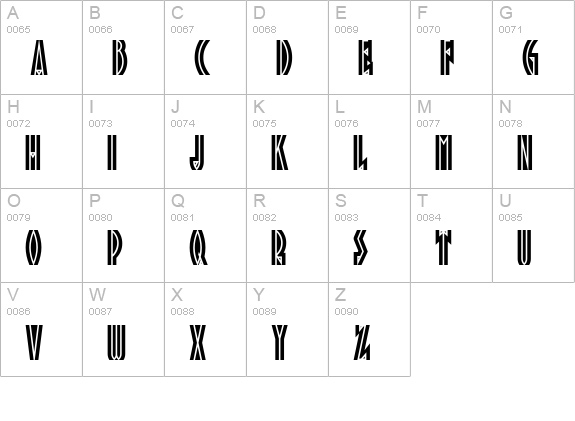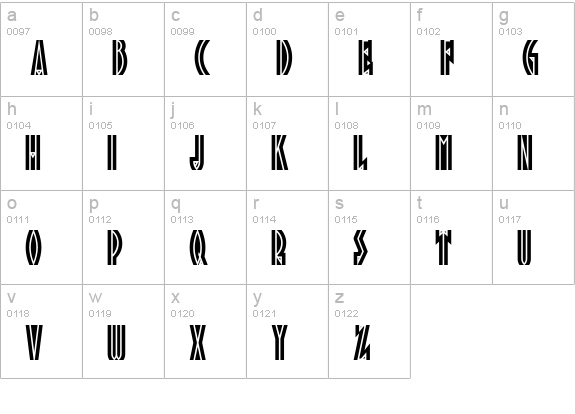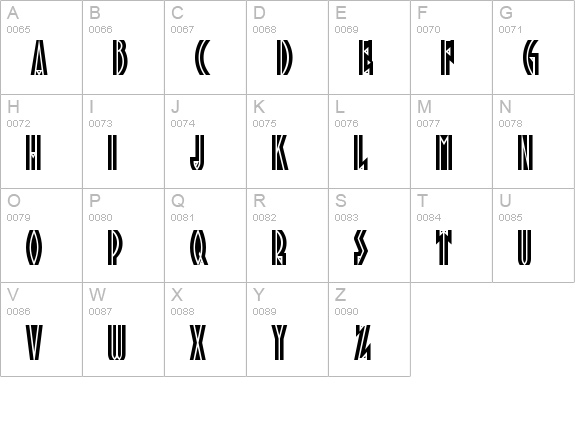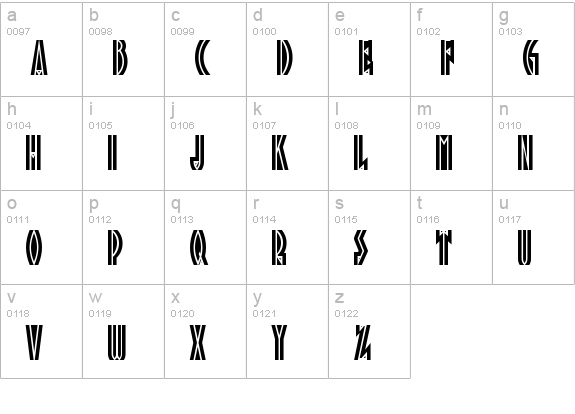
Tropicana NF Font Details
Tropicana NF font is a delightful and playful typeface that exudes a tropical charm. With its smooth curves and unique letterforms, this font is perfect for adding a touch of whimsy to your designs. Whether you're working on a summer-themed project or want to inject some fun into your branding, Tropicana NF is sure to stand out. The best part? Tropicana NF font is available for free download at FontsMarket.com, making it easily accessible for all your creative endeavors. Embrace the sunny vibes and bring a burst of energy to your projects with Tropicana NF font today!